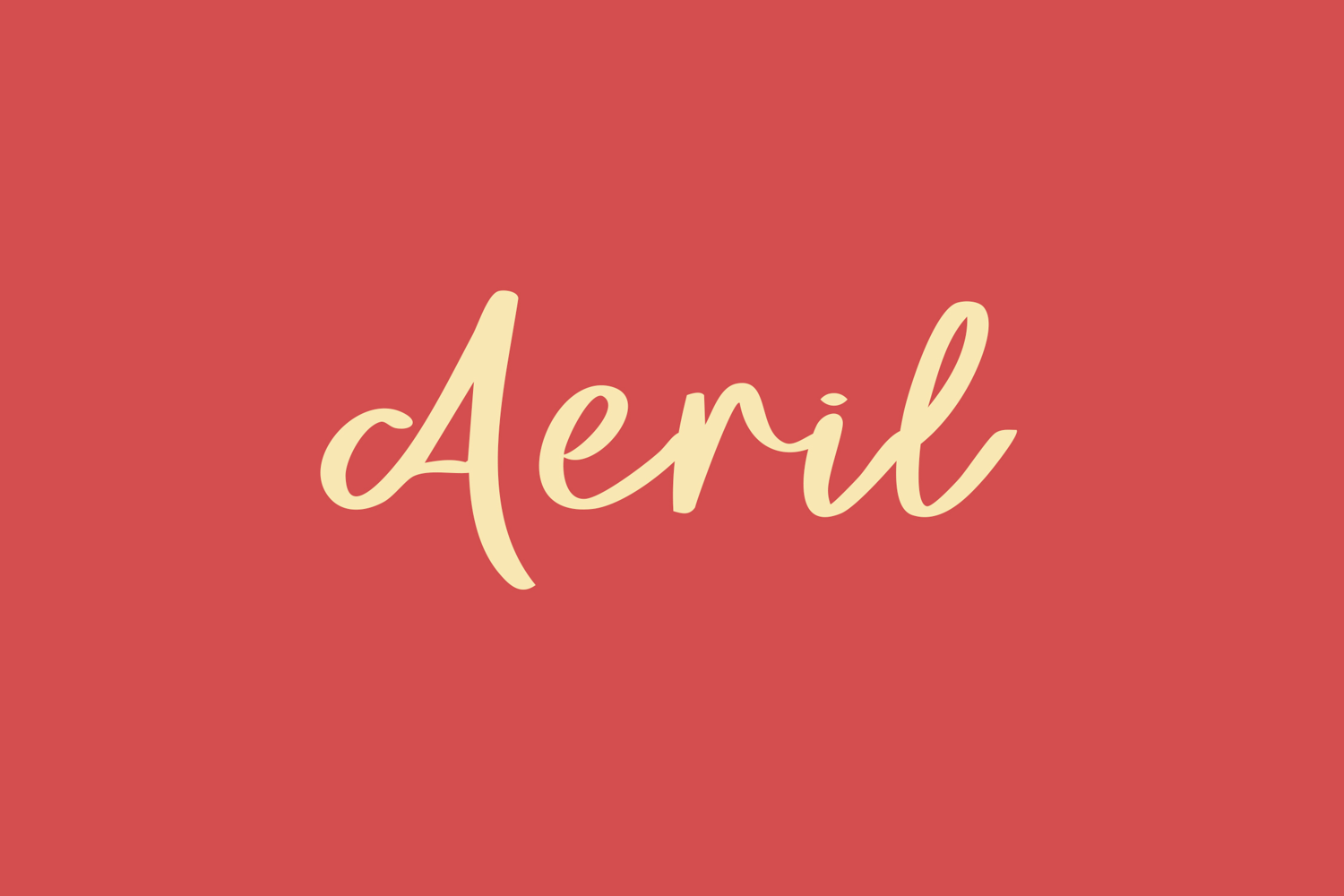
Aeril Script Font
Aeril
Aeril Script Font is a smooth, elegant script typeface designed to bring a touch of sophistication to your creative projects. Its flowing curves, gentle strokes, and natural handwritten rhythm make it perfect for branding, wedding invitations, product packaging, quotes, logos, and feminine-themed designs. Aeril combines readability with graceful charm, giving every layout a refined and stylish look without losing its warm. Whether you’re designing for clients or elevating your own brand, Aeril offers a timeless script style that enhances any visual concept.